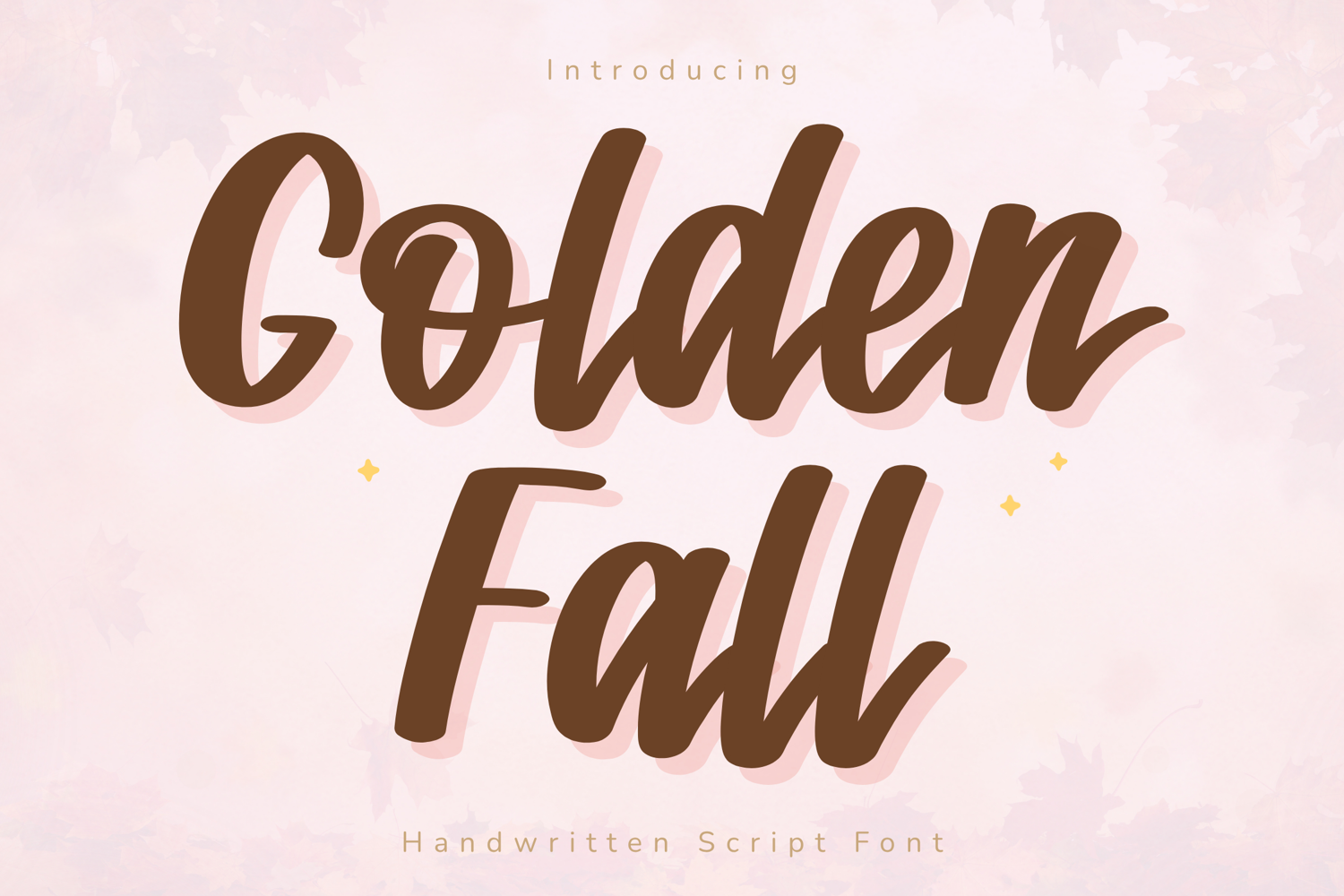
Golden Fall - Handwritten Script Font
GoldenFall
Golden Fall – Handwritten Script Font
Golden Fall is a warm and stylish handwritten script font inspired by cozy autumn vibes and modern feminine design. With its bold flowing strokes, smooth curves, and soft handwritten movement, this font creates a friendly and inviting aesthetic that feels trendy, playful, and easy to use.
Designed to stand out while staying clean and readable, Golden Fall works beautifully for seasonal projects, branding, stickers, Cricut crafts, planner covers, packaging, and social media graphics.
Its soft handcrafted look makes it perfect for creators who want a cute and approachable handwritten style with a cozy seasonal touch.
Key Features:
Uppercase & lowercase letters
Bold handwritten script style
Smooth rounded strokes
Numbers, punctuation & symbols
Perfect For:
Autumn & seasonal designs
Cricut & craft projects
Stickers & planner covers
Social media graphics
Packaging & labels
Cute feminine branding
Golden Fall is designed to create a cozy, warm, and playful handwritten vibe that works beautifully for seasonal and everyday creative projects.